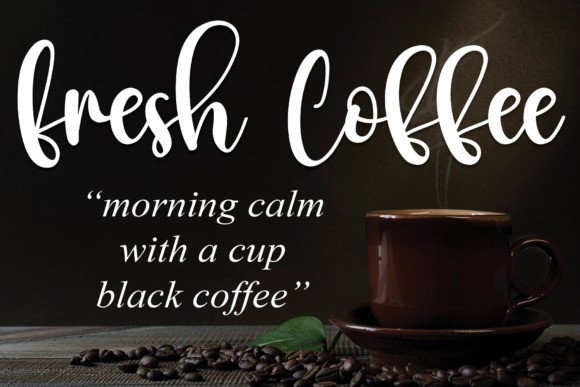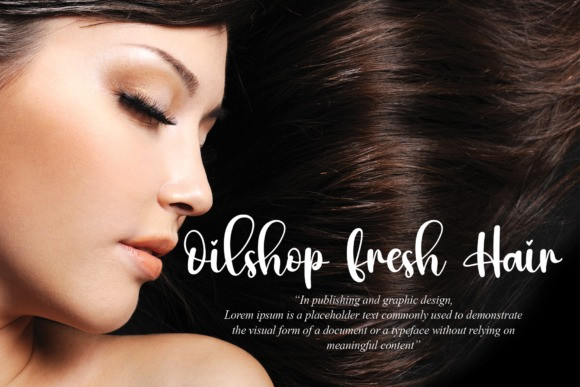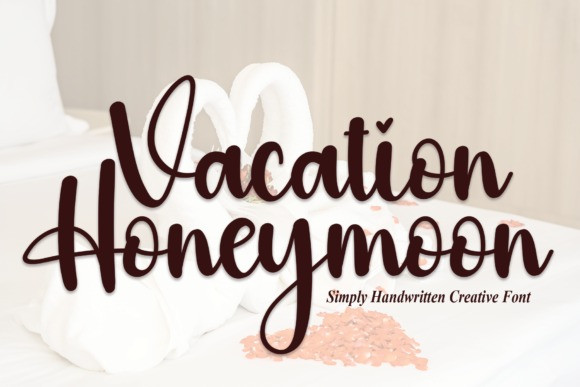
Vacation Honeymoon Font
Vacation Honeymoon Font, perfect for wall displays, wedding invitations, social media post logos, advertisements, product packaging, product designs, labels, photography, watermarks, invitations, stationery, and any project that requires a handwritten taste.